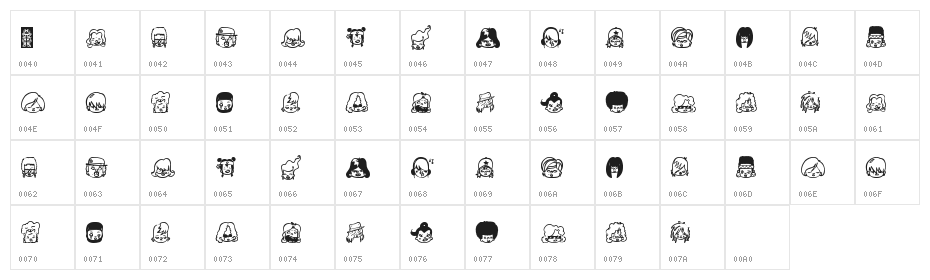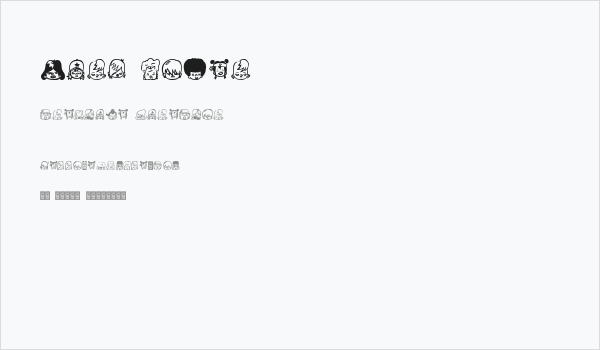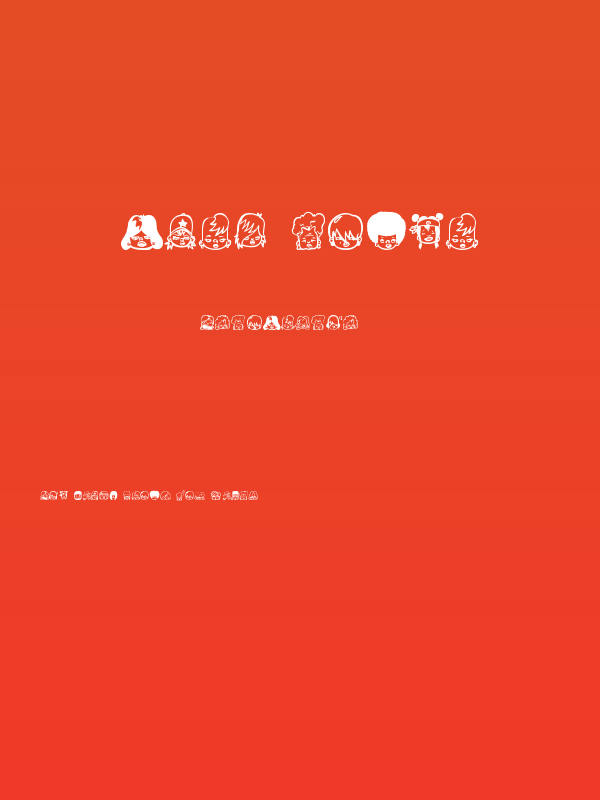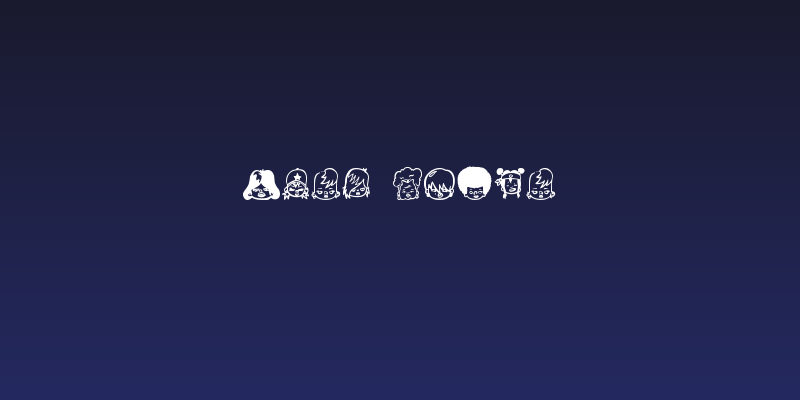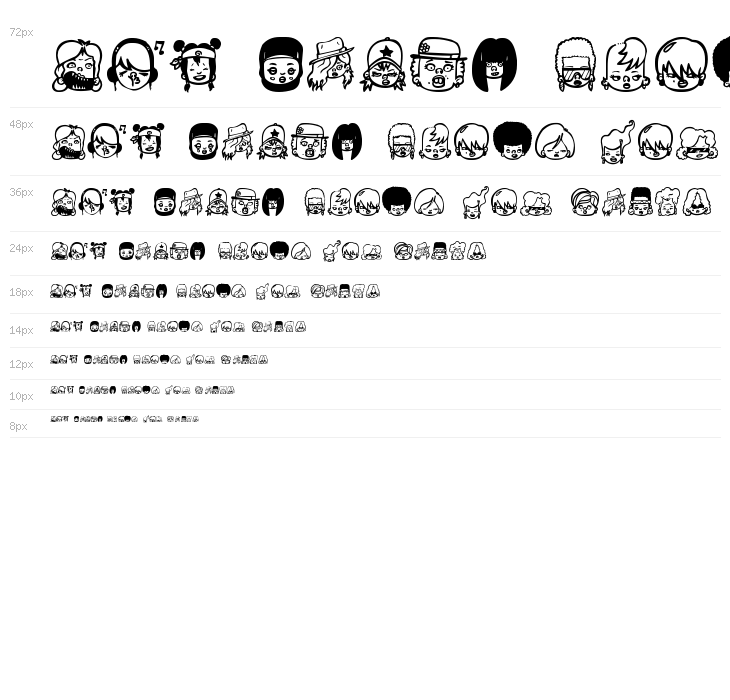
girl power Font
girl power Description
A playful and decorative font composed of illustrated female faces for each letter and number, with special characters represented by stylized icons. The characters are cartoonish, bold, and highly detailed, making each glyph unique and expressive.
| Overall Style | Playful, Decorative, Whimsical |
| Use Case | Logos, Headlines, Posters, Themed graphics |
| Proposed Projects | Children's books, posters, event invitations, branding for youth-oriented products, educational materials. |